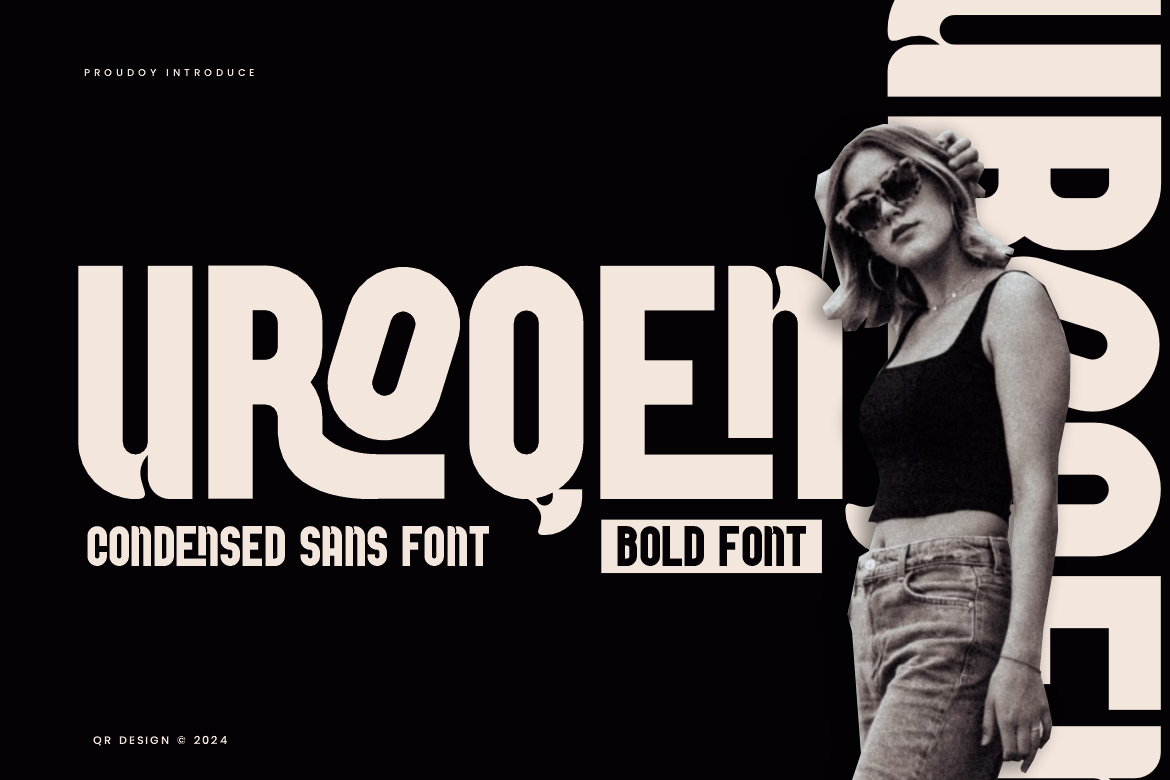
Uroqen - Condensed Sans Font
Uroqen Font is a bold and authentic display font. The font is suitable for any branding project like poster, logo, sport, and many more. Outstanding in a wide range of contexts.